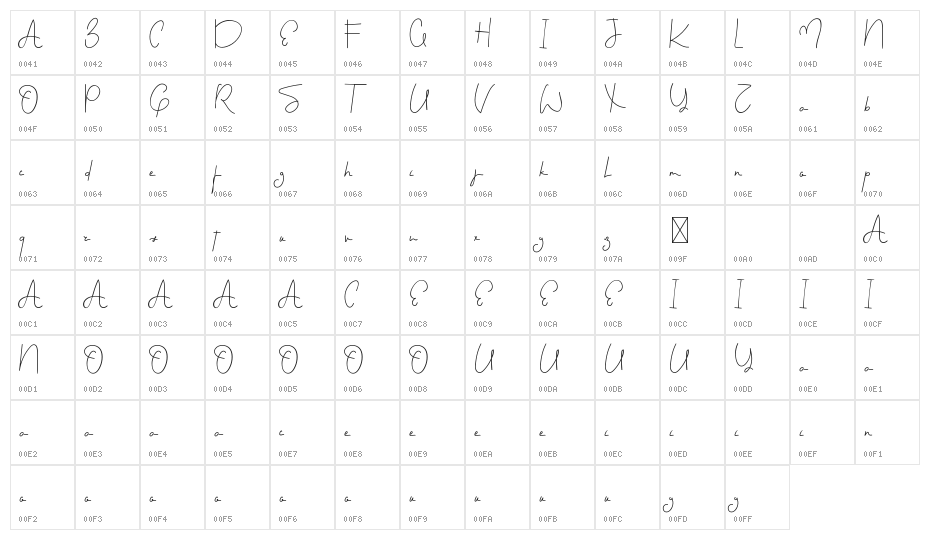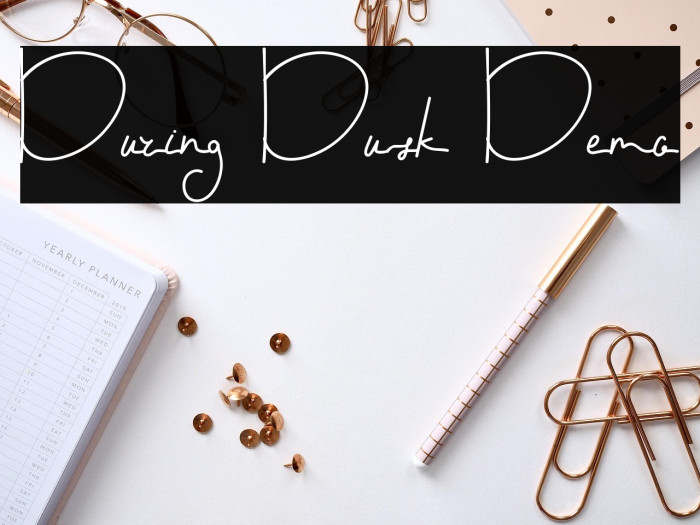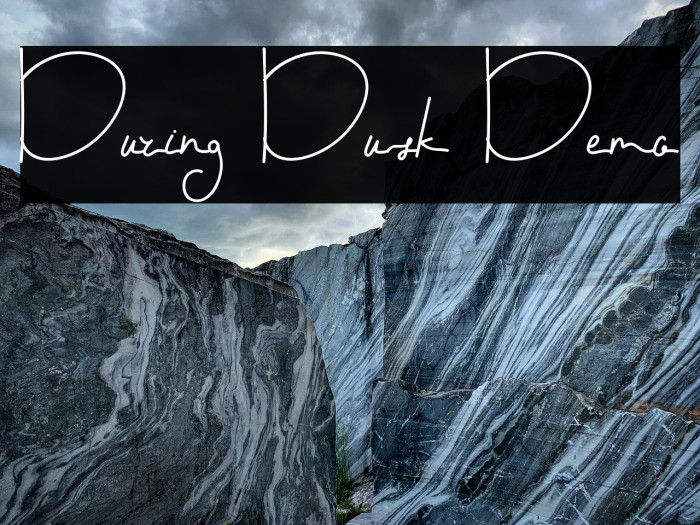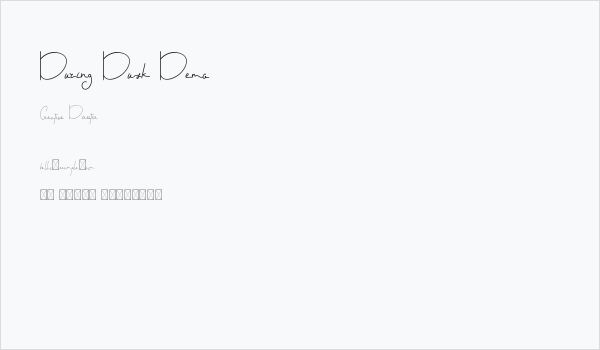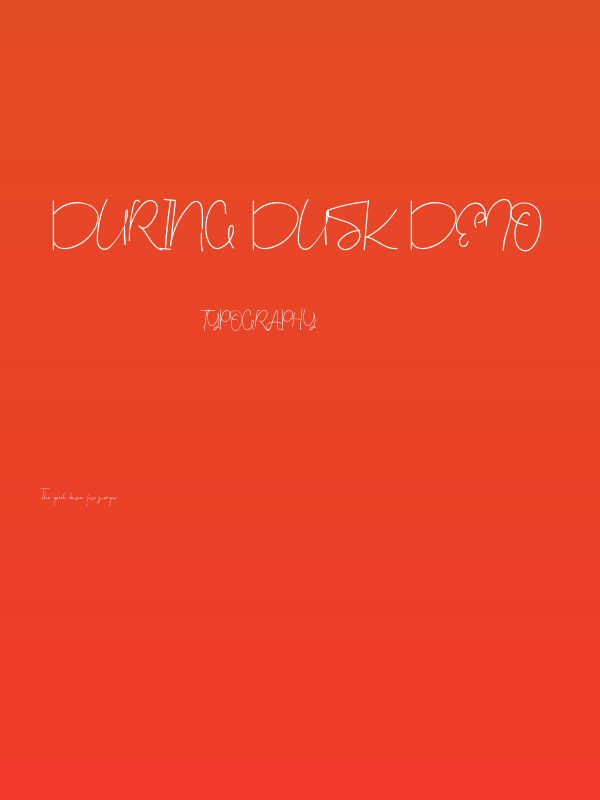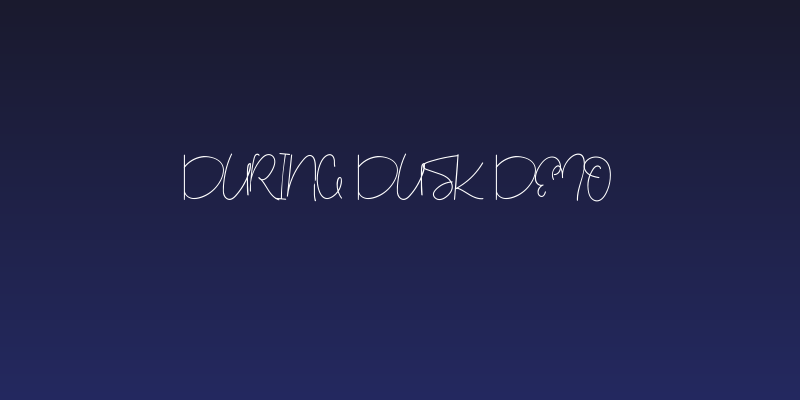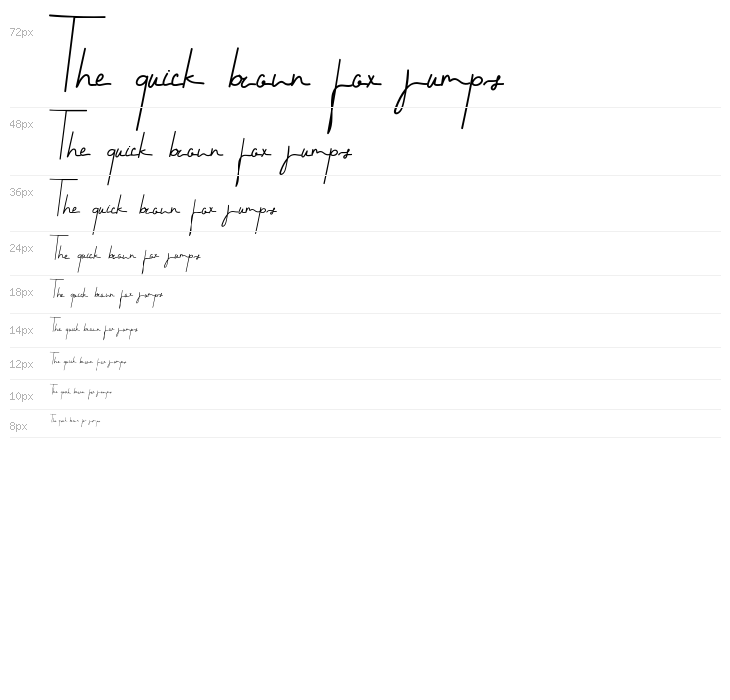
During Dusk Demo Font
During Dusk Demo Description
This font features a unique, artistic style with a hand-drawn appearance. The characters are elongated and have a whimsical, flowing quality, reminiscent of calligraphy. The uppercase letters are bold and expressive, with exaggerated curves and loops, while the lowercase letters maintain a consistent, slender form. The numbers and special characters follow the same playful and creative design, making the font suitable for projects that require a touch of personality and flair. The overall look is both modern and artistic, making it ideal for creative and decorative uses.
| Overall Style | Artistic, Modern |
| Use Case | Decorative, Creative projects |
| Proposed Projects | Ideal for greeting cards, artistic posters, branding, and creative invitations. |